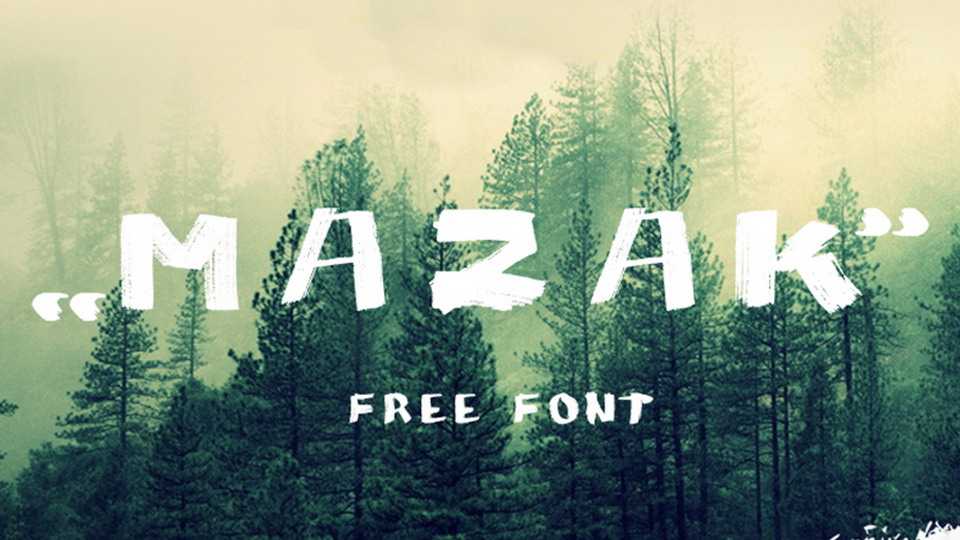
Download Mazak font, a bold brush hand drawn all caps font with natural look and texture. It’s suitable for crafts, posters, headlines, social media and other creative projects.
Designer: Ewelina Gąska